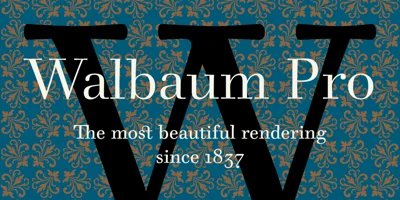
Walbaum 2010 Pro Font
Walbaum 2010 Pro Font is perfect for luxury fashion magazines, high-end editorial design, prestigious book publishing, elegant corporate identity, fine art exhibition catalogs, classical music programs, sophisticated branding projects, and premium publication typography. This distinguished serif typeface excels in projects requiring classical elegance and typographic refinement where historical gravitas meets contemporary professional standards.
What makes Walbaum 2010 Pro Font exciting is its masterful revival of early 19th-century German typography combined with cutting-edge digital optimization, creating a typeface that honors classical tradition while meeting modern professional demands. The font features refined letterforms with distinctive high contrast and elegant proportions that convey sophistication, cultural authority, and timeless quality. Its classical character makes it ideal for luxury brands and cultural institutions seeking to communicate heritage, excellence, and uncompromising quality.
Walbaum 2010 Pro Font family includes comprehensive weight variations and extensive OpenType features that provide exceptional flexibility for complex editorial and branding projects. The family typically offers regular, medium, semibold, and bold weights, along with corresponding italic styles, small caps, old-style numerals, and professional ligatures that enable sophisticated typographic compositions and publication-quality results.
Whether you're developing luxury brand identity, creating premium editorial layouts, or designing cultural institution materials, Walbaum 2010 Pro Font delivers unparalleled classical sophistication across all professional applications. This font's historical prestige and contemporary optimization make it perfect for organizations where tradition, quality, and cultural refinement are fundamental to brand identity.
The meticulously crafted letterforms and classical proportions of Walbaum 2010 Pro Font ensure exceptional readability while projecting unwavering elegance and cultural authority at any size. Its timeless design and professional heritage create lasting impressions that resonate with discerning audiences who appreciate classical typography and cultural sophistication. Download Walbaum 2010 Pro Font today and elevate your projects with this distinguished typeface that perfectly embodies the pinnacle of classical German typography tradition updated for contemporary professional excellence.